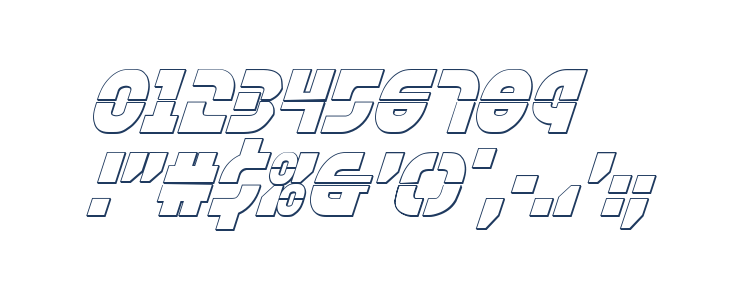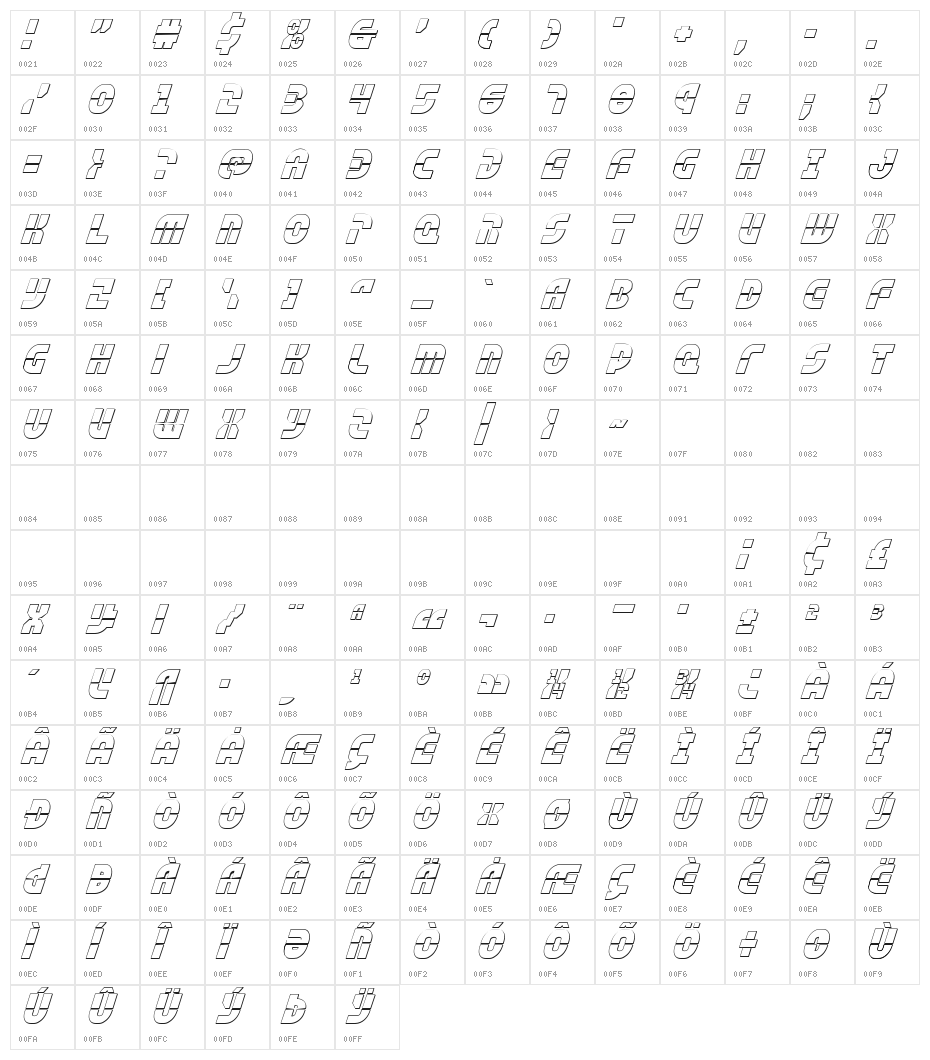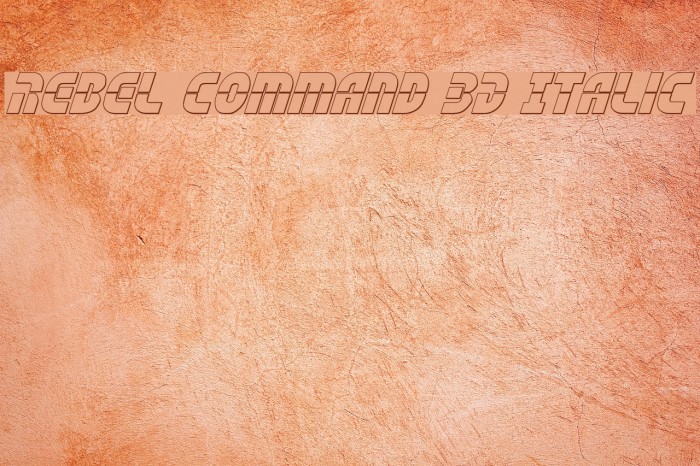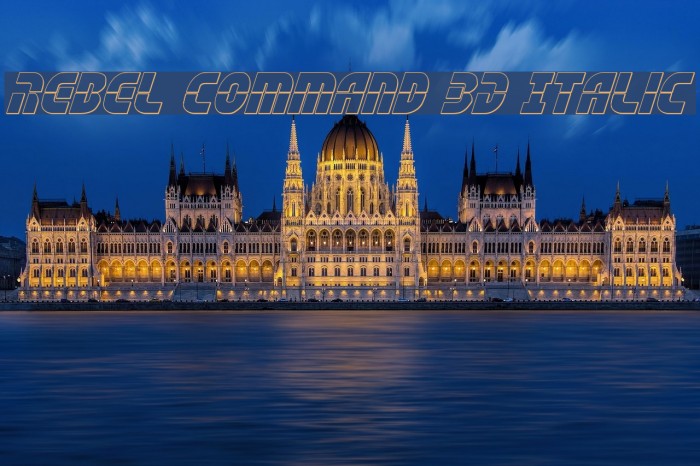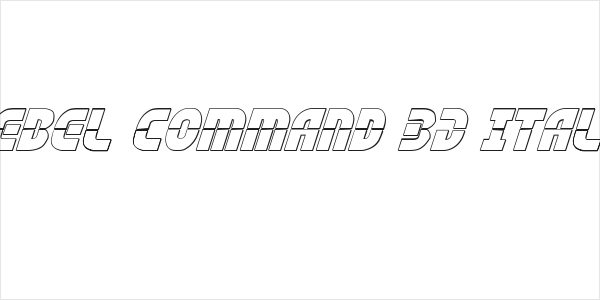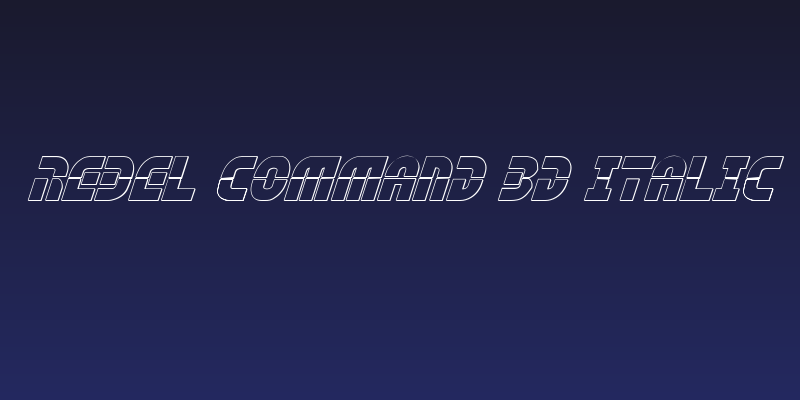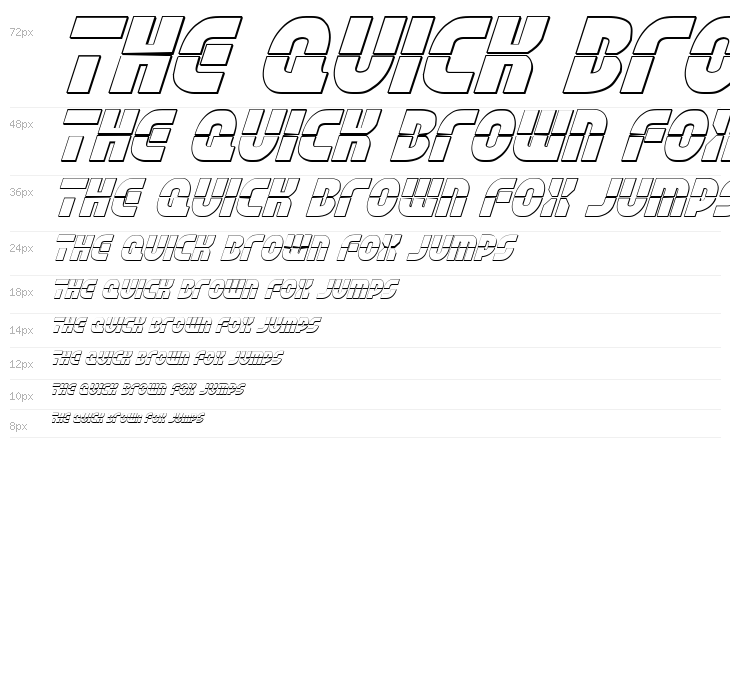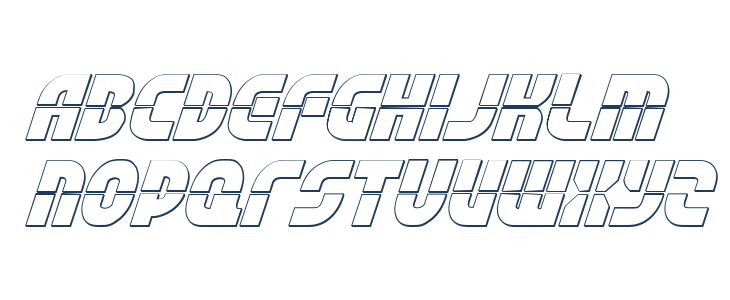
Rebel Command 3D Italic Font
Rebel Command 3D Italic Description
This font features a bold, three-dimensional design with a futuristic and dynamic appearance. The characters are italicized, giving them a sense of motion and energy. Each letter is outlined, creating a hollow effect that enhances the 3D illusion. The font has a geometric structure with sharp angles and clean lines, making it highly legible while maintaining a unique style. The uppercase and lowercase letters are consistent in style, and the numerals and special characters follow the same design principles, ensuring uniformity across all text. This font is ideal for projects that require a modern and edgy look.